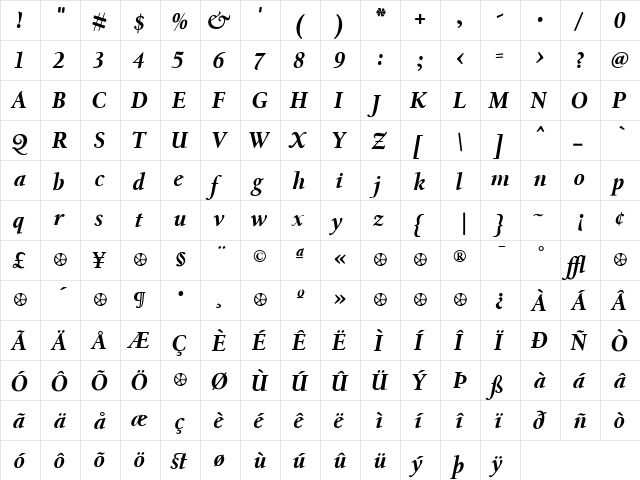
CalifornianText ItalicBold
Design Context for CalifornianText Typeface
CalifornianText takes a measured approach to typography — its balanced proportions and neutral character make it a reliable workhorse for both digital and print work. The slanted form adds forward momentum and visual energy. Its bold stroke weight gives it real presence on the page.